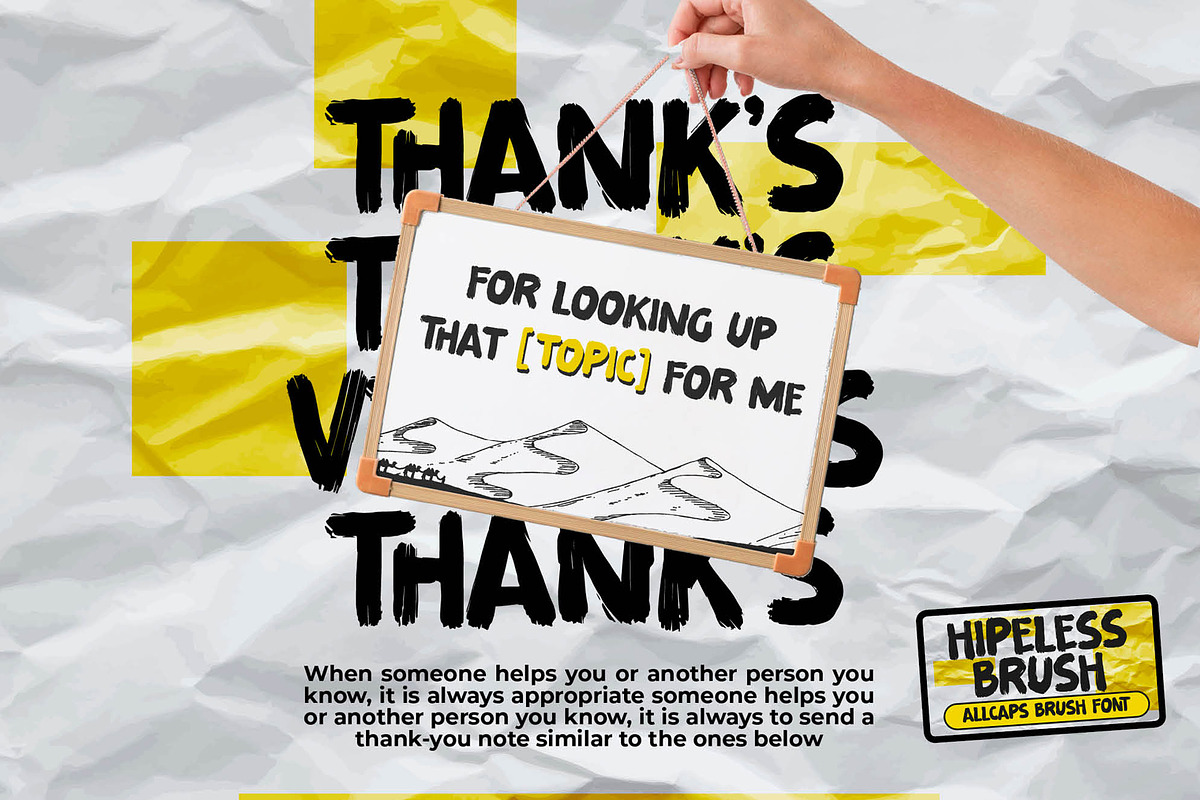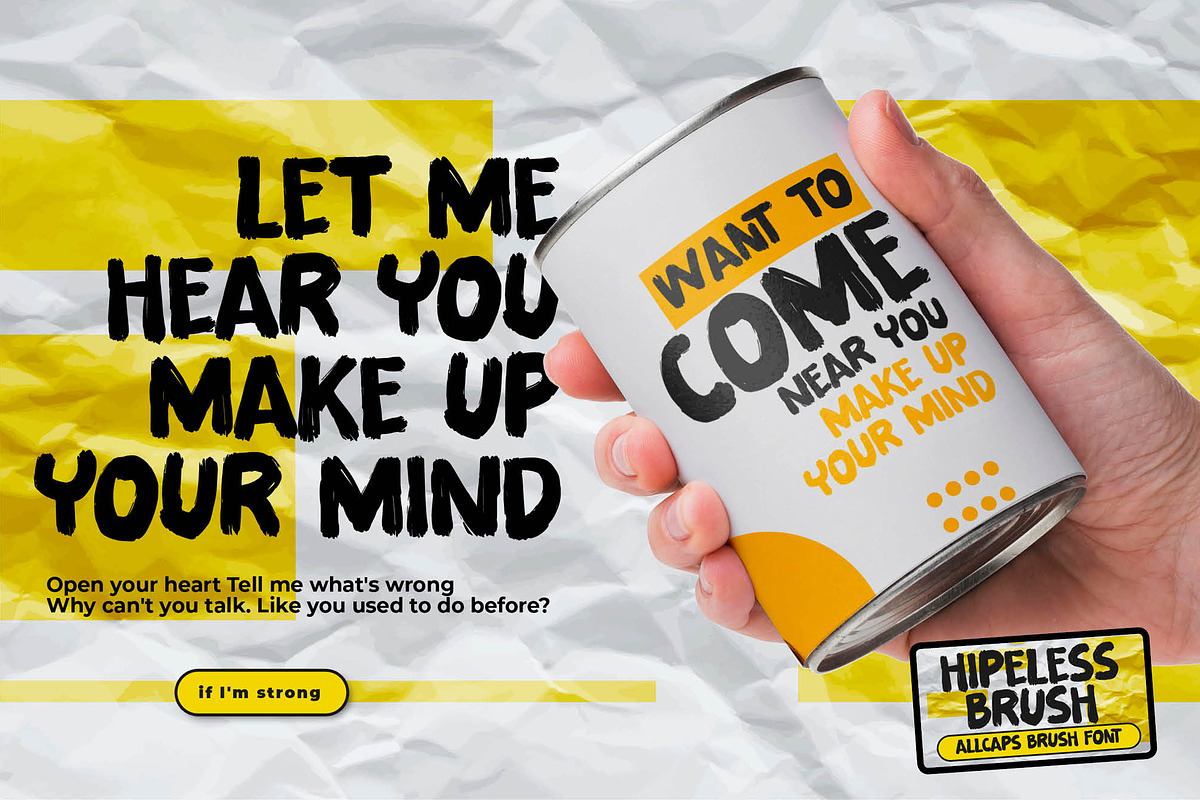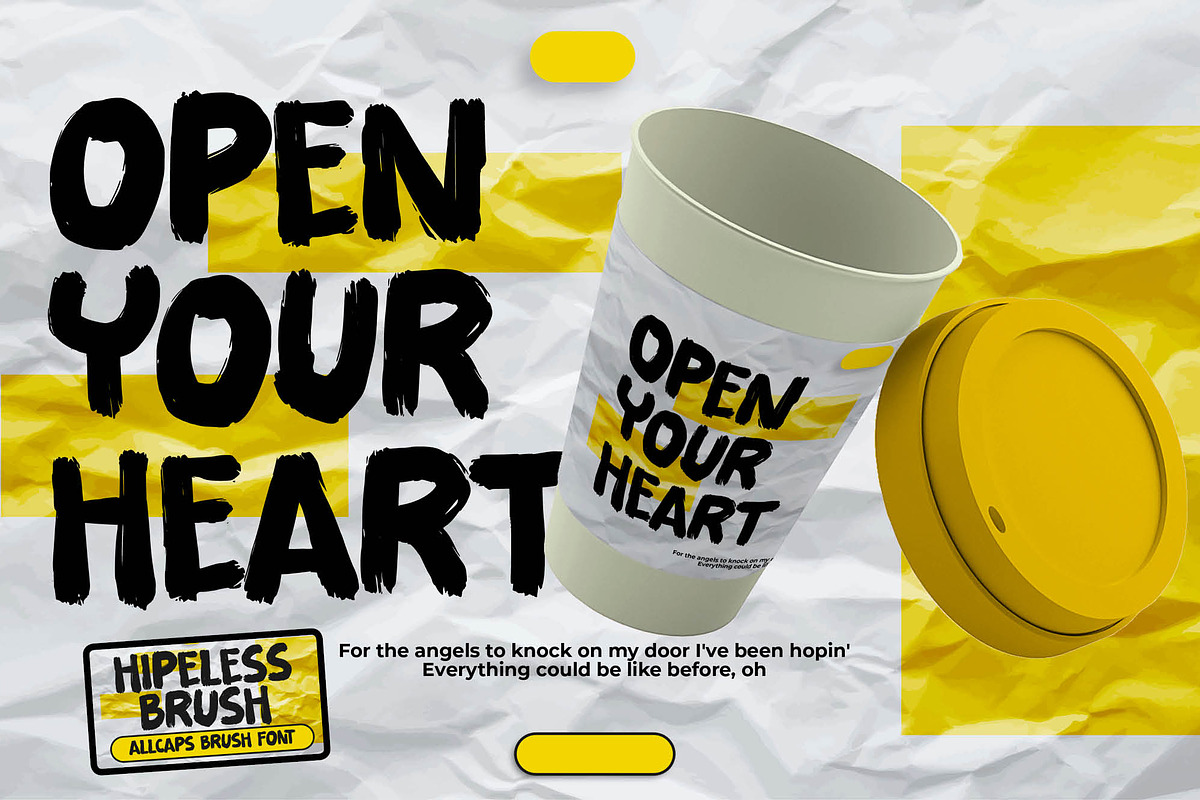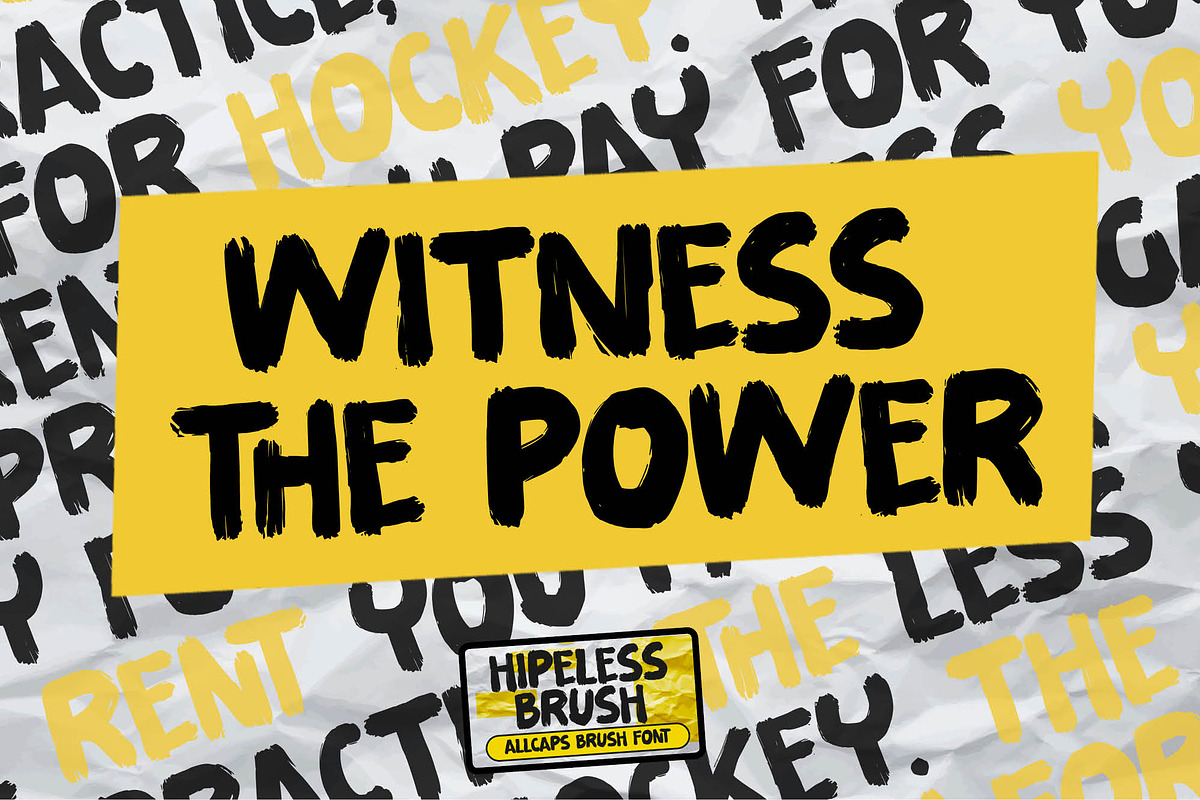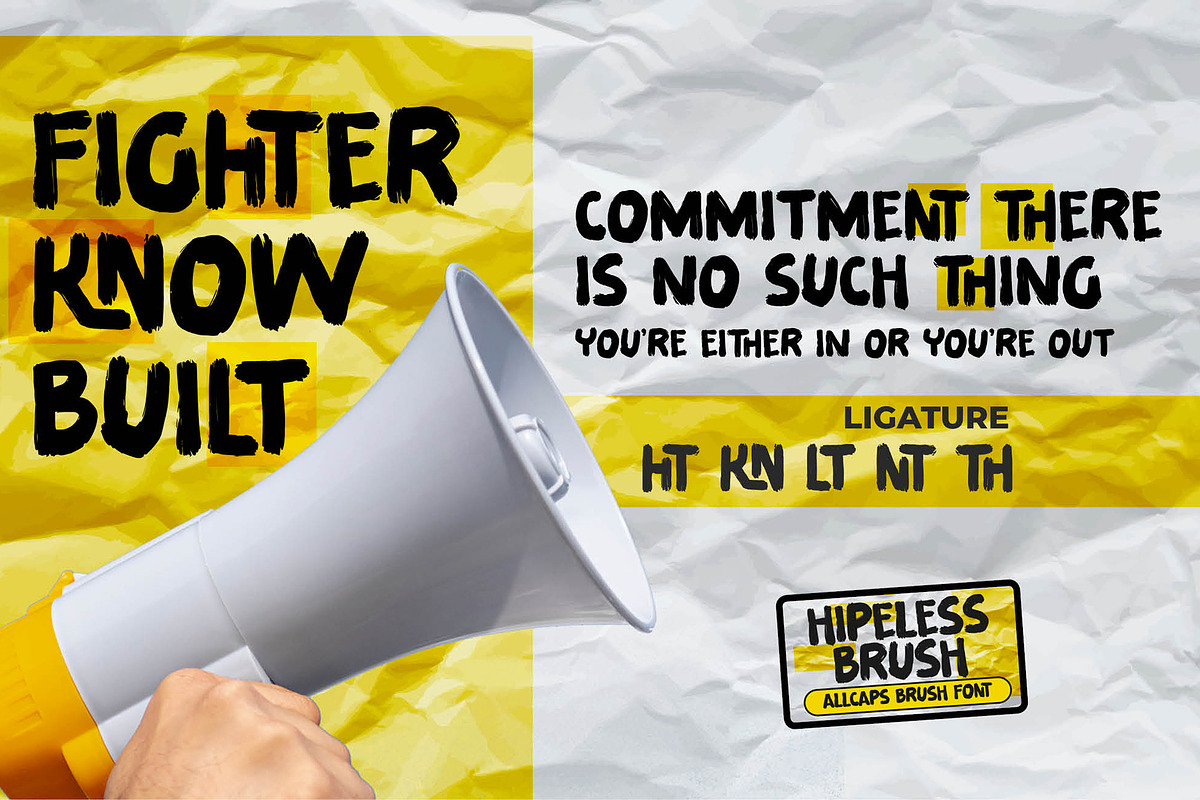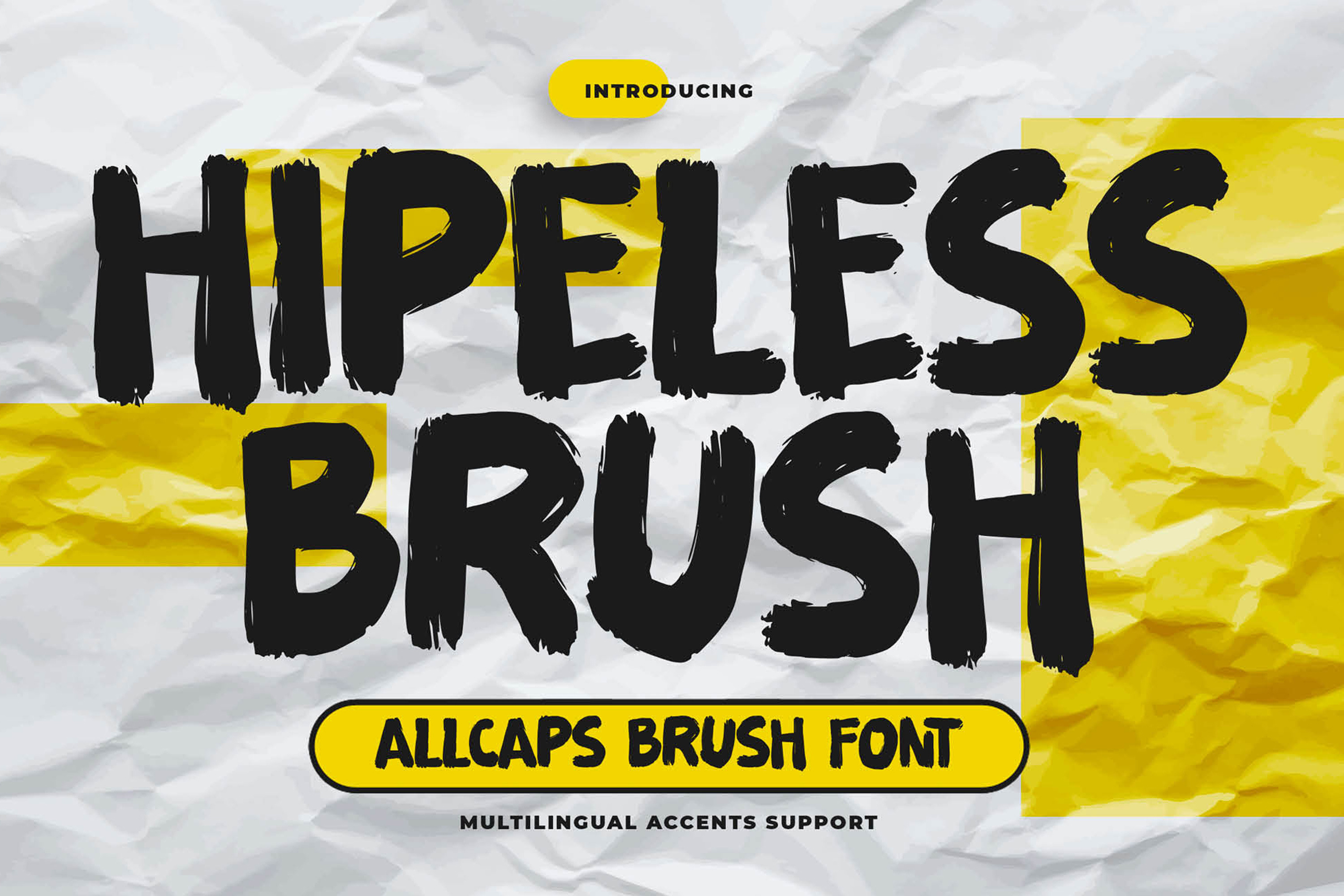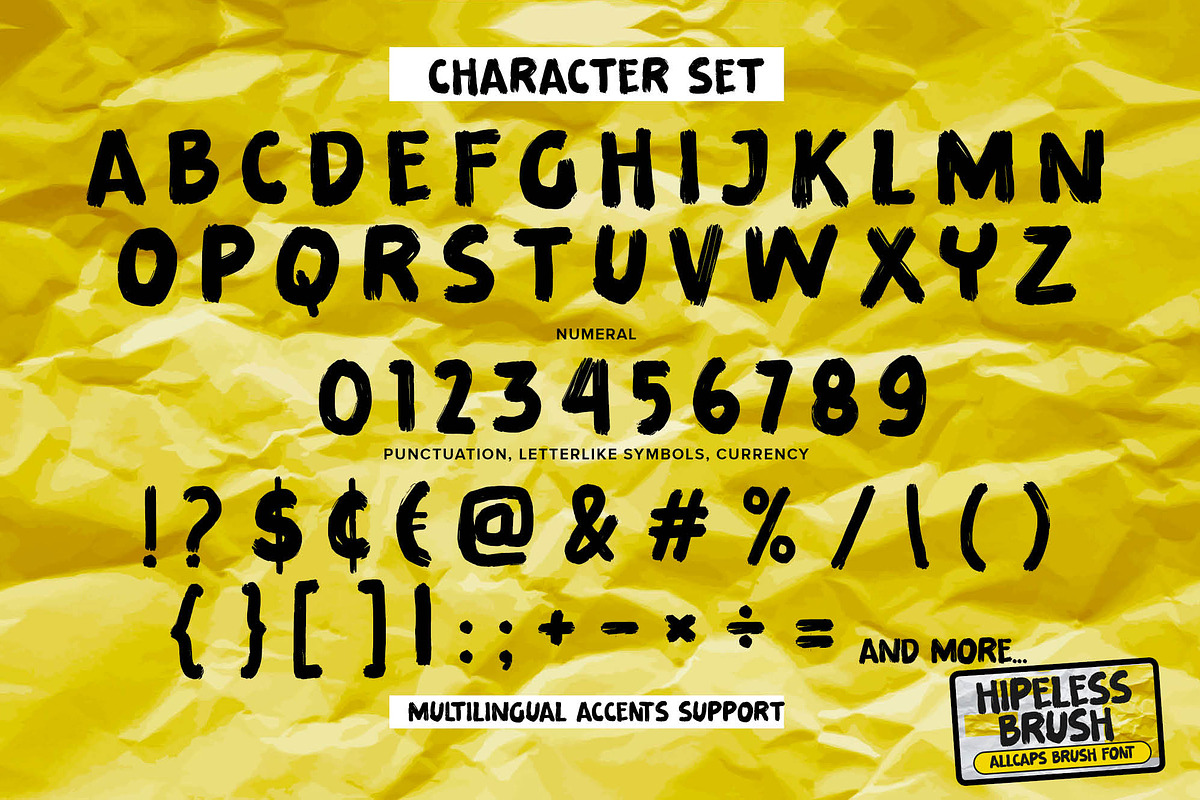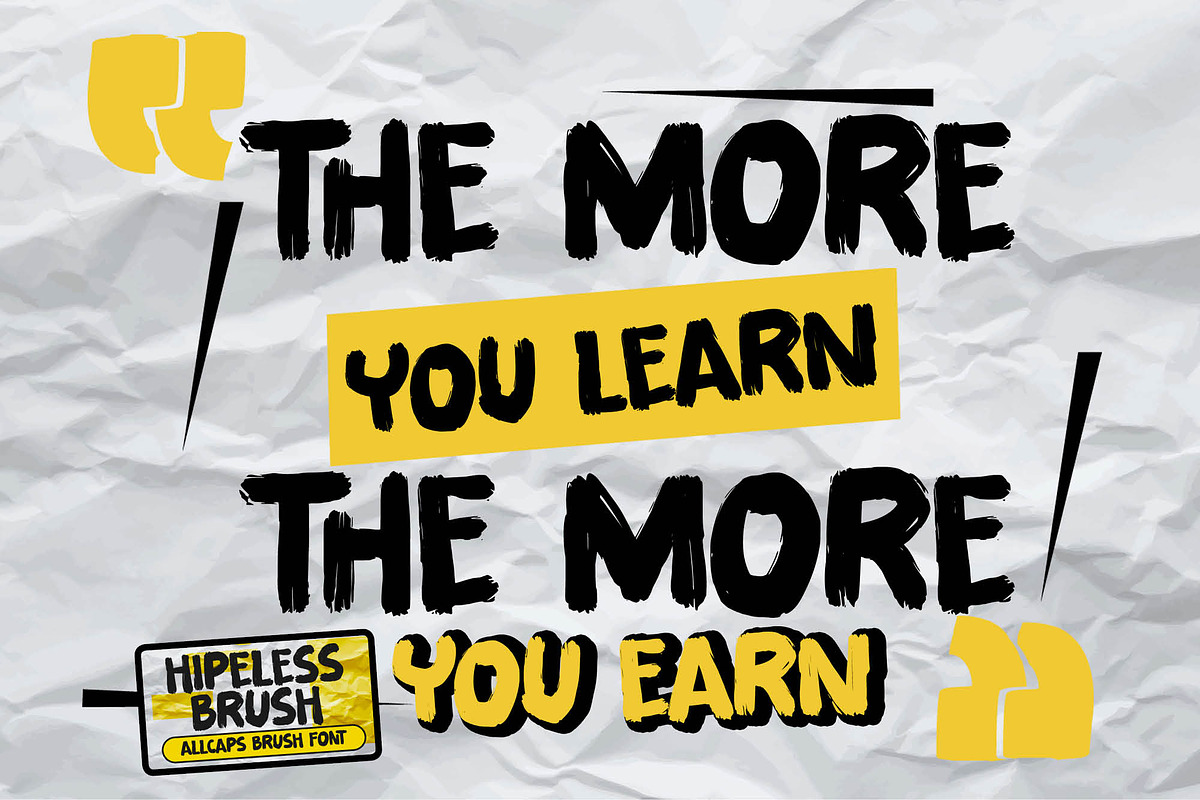
Hipeless Brush - All Caps Brush Font
Here comes our new font Hipeless Brush this is a All Caps Brush Font that is written casually and quickly. Font Strong Style and classy style this font are made with brushes on Procreate. Then crafted carefully drawn into vector format.this font is great for your creative projects such as watermark on photography, and perfect for logos & branding, photography, invitation, watermark,advertisements,product designs, stationery, wedding designs,label ,product packaging, special events or anything that need handwritting taste. Hipeless Brush a natural handwritten feel. This handmade font will make your design has a beautiful natural touch for each details. It is perfect for any design project as Invitation,logo, book cover, craft or any design purposes.
That is why Hipeless Brush is strong characteristic more natural look to your text with a more modern look to your text. You can activate Ligature OpenType panel to make these two styles.